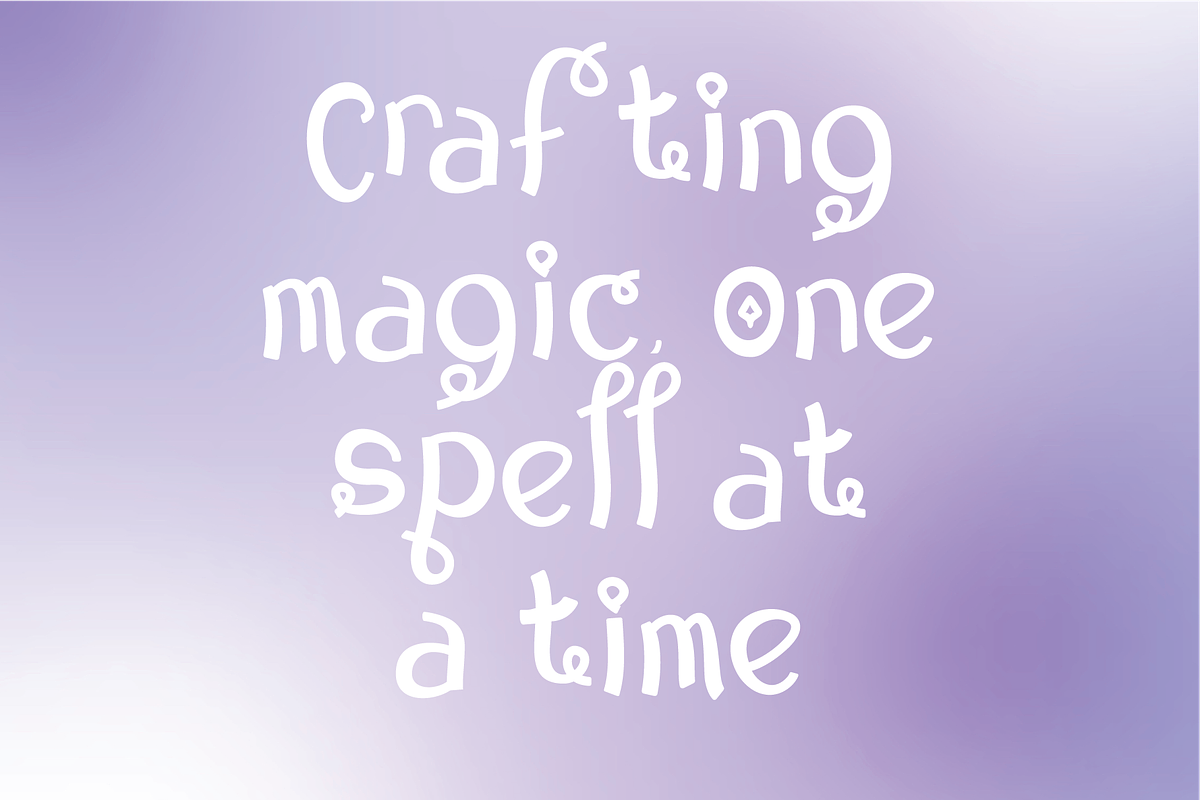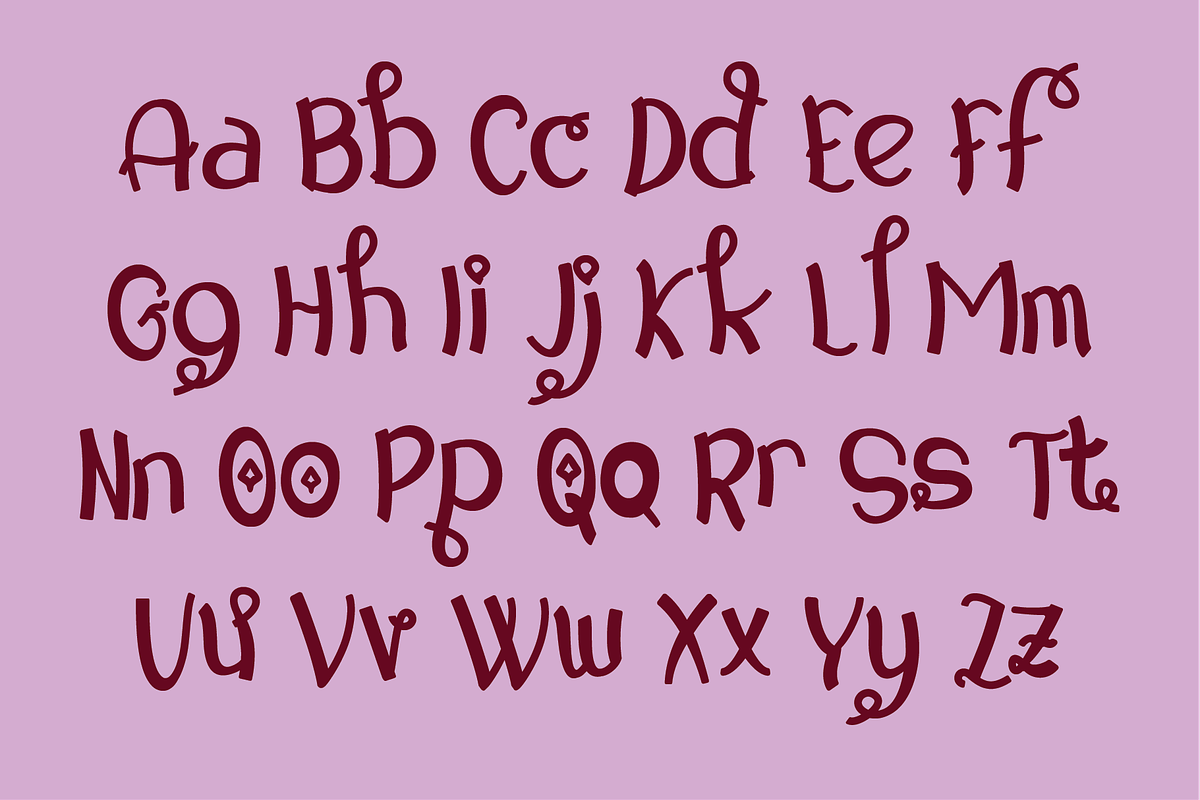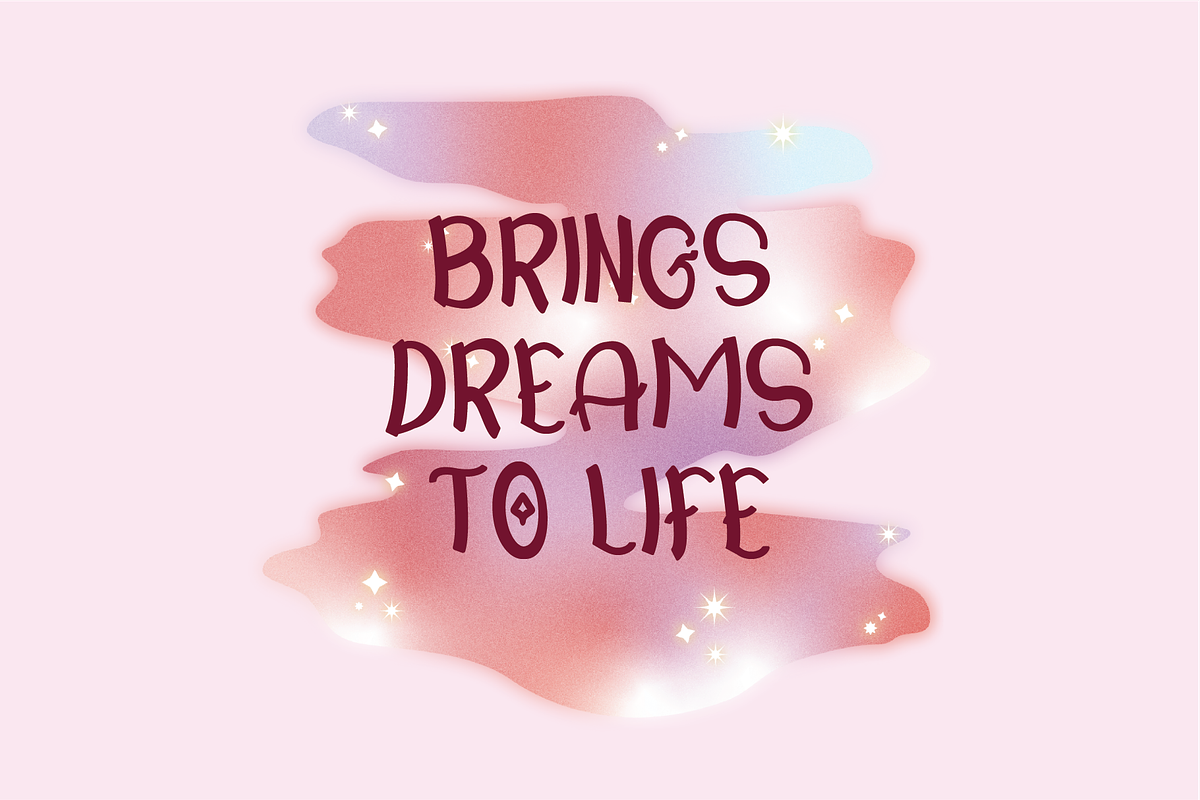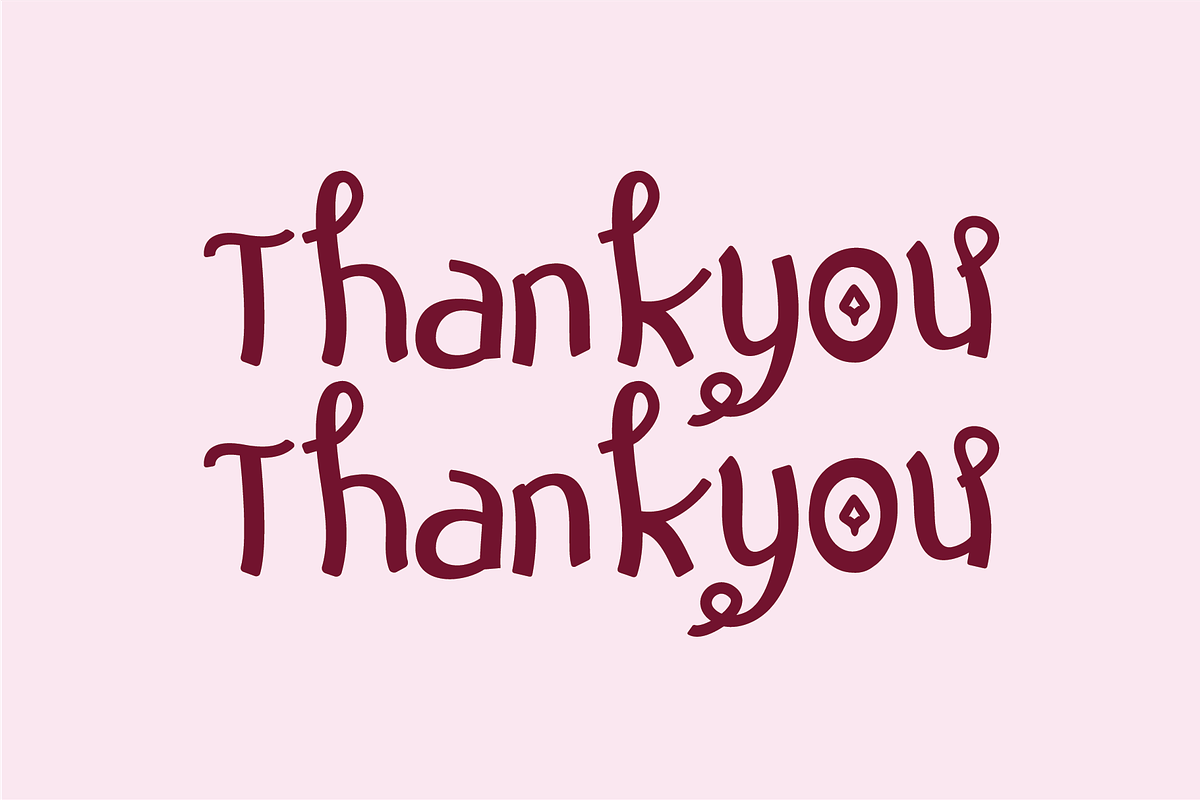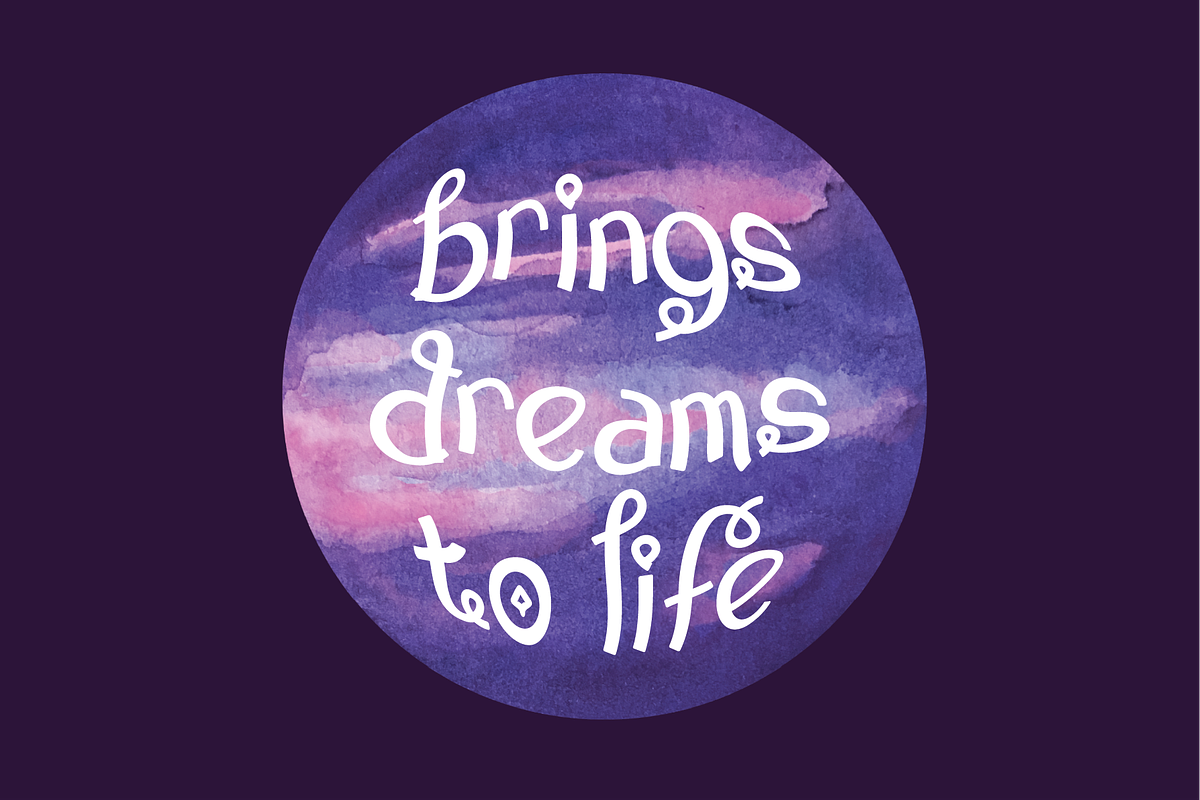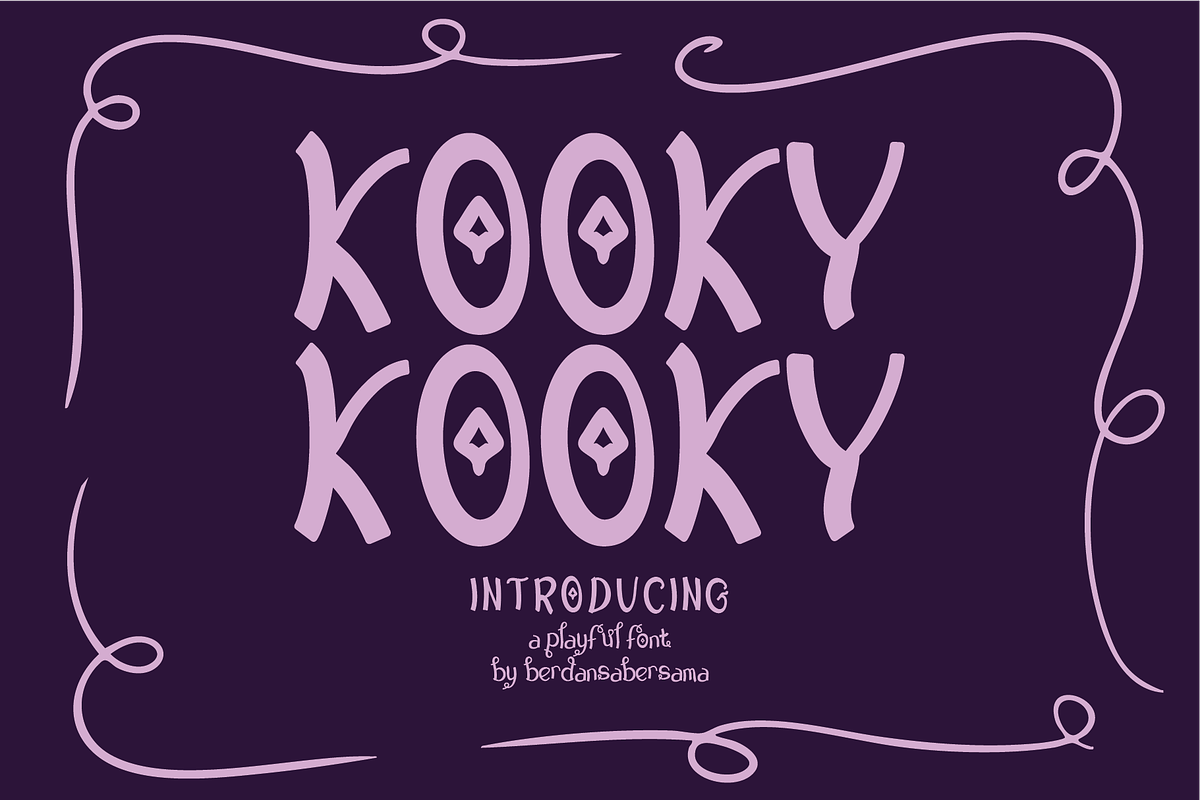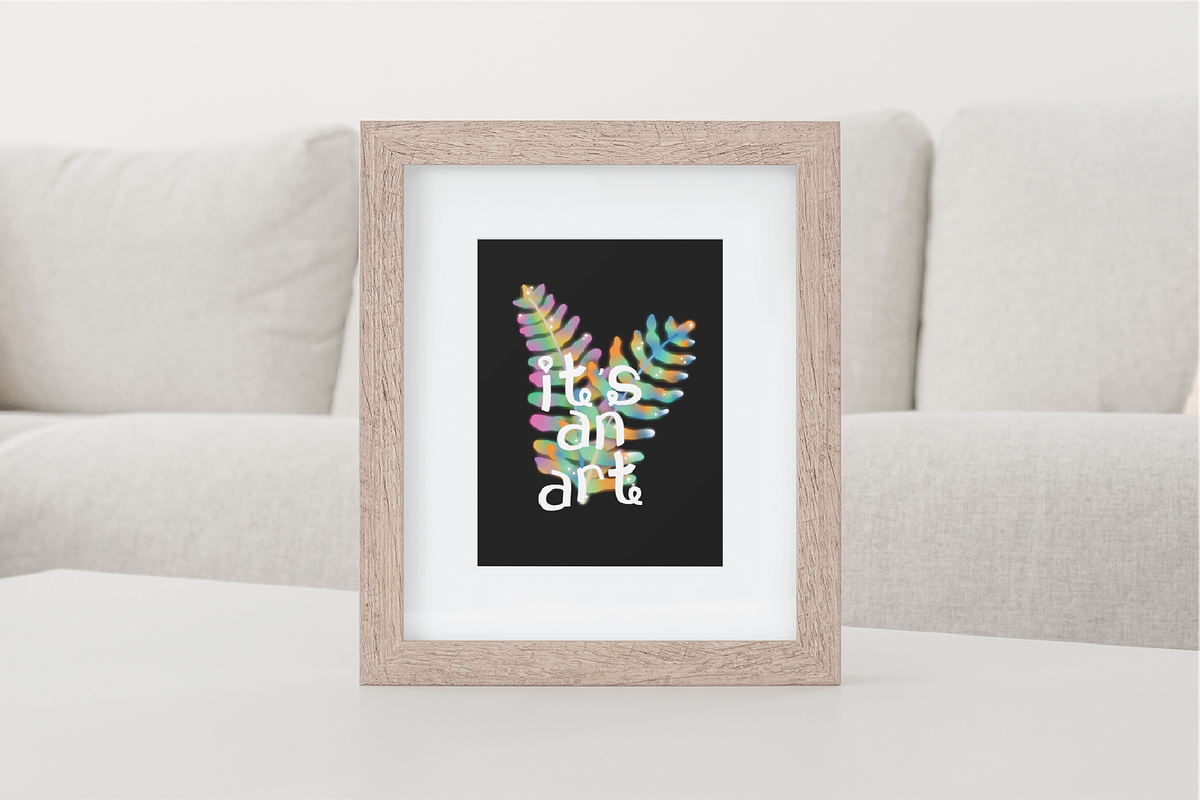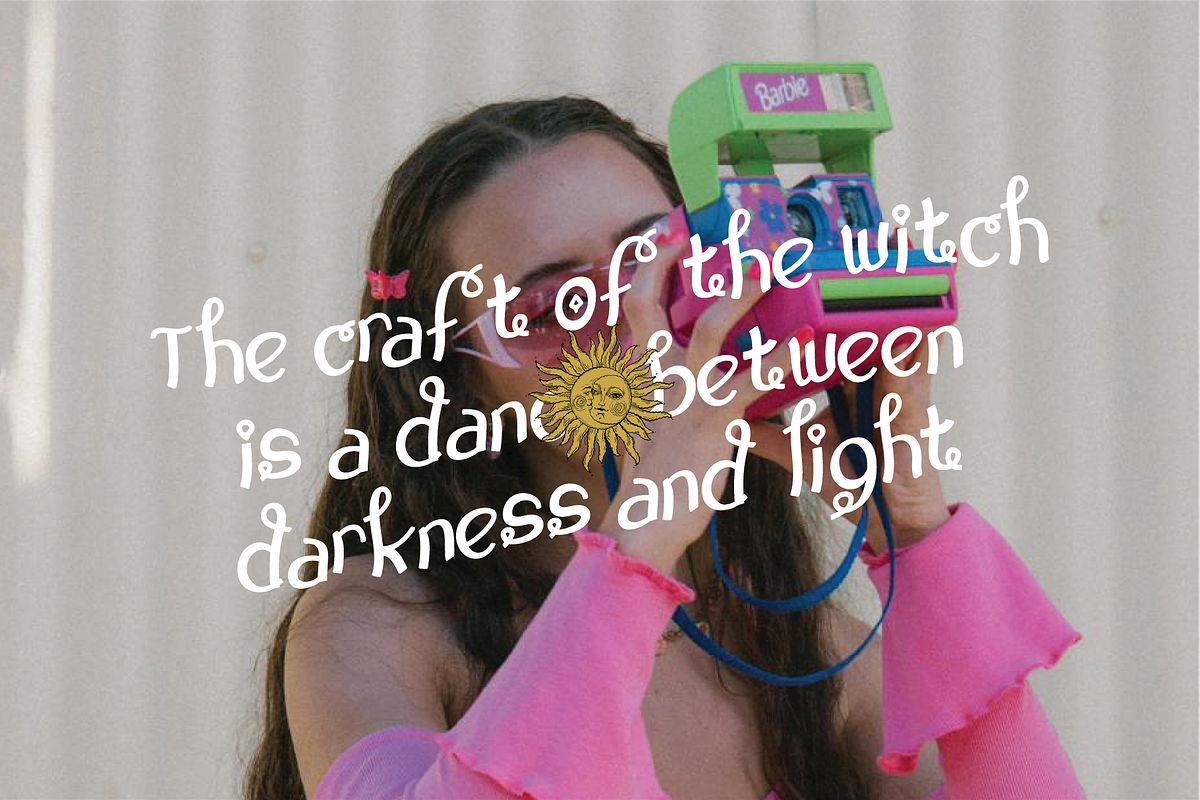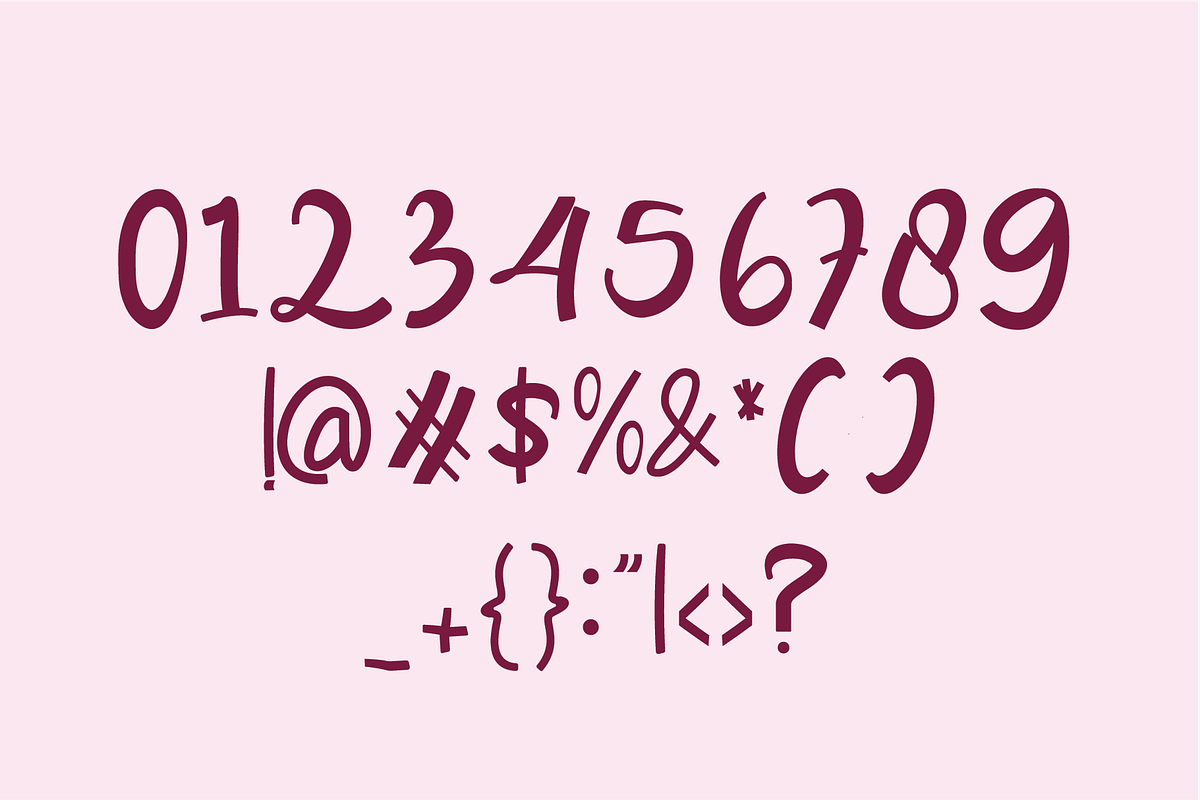
Kooky Playful Font
Kookyis a playful retro-style display font with bold curves and quirky character shapes. The letters feature unique inner eye-like details, giving the font a fun, eccentric, and slightly whimsical personality. This makes every word feel lively, expressive, and full of attitude.
- Numbers, marks and symbols